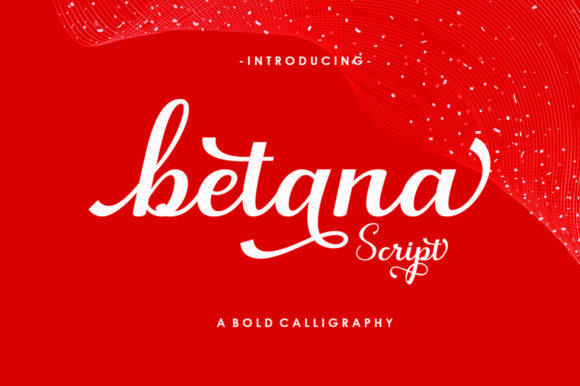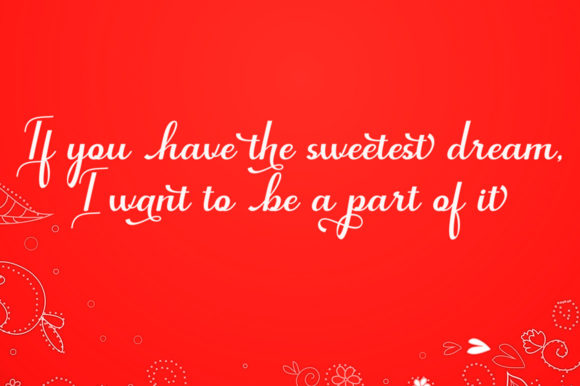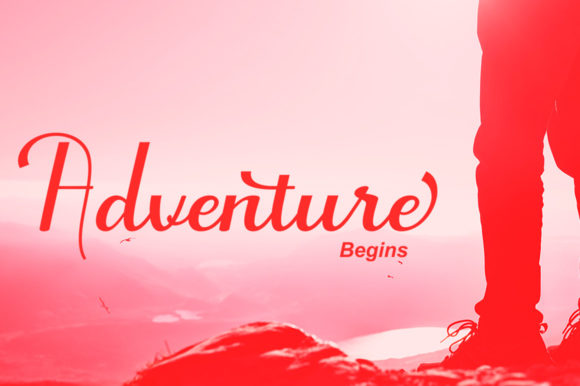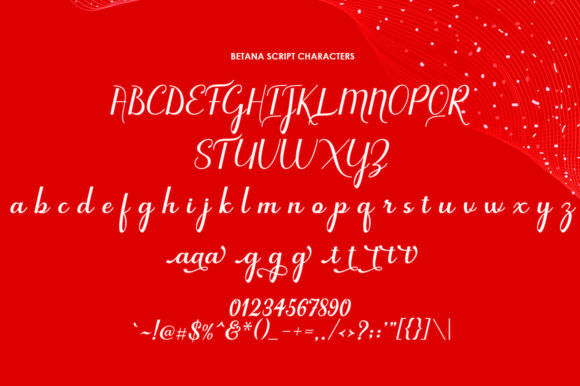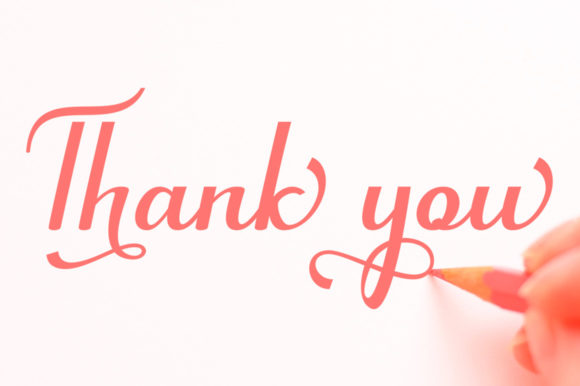
Betana Script Font
About Betana Script Font
Betana Script is a lovely script font featuring charming, playful characters. Add it to your most creative ideas, and notice how it makes them stand out! This font is PUA encoded which means you can access all glyphs and swashes with ease!